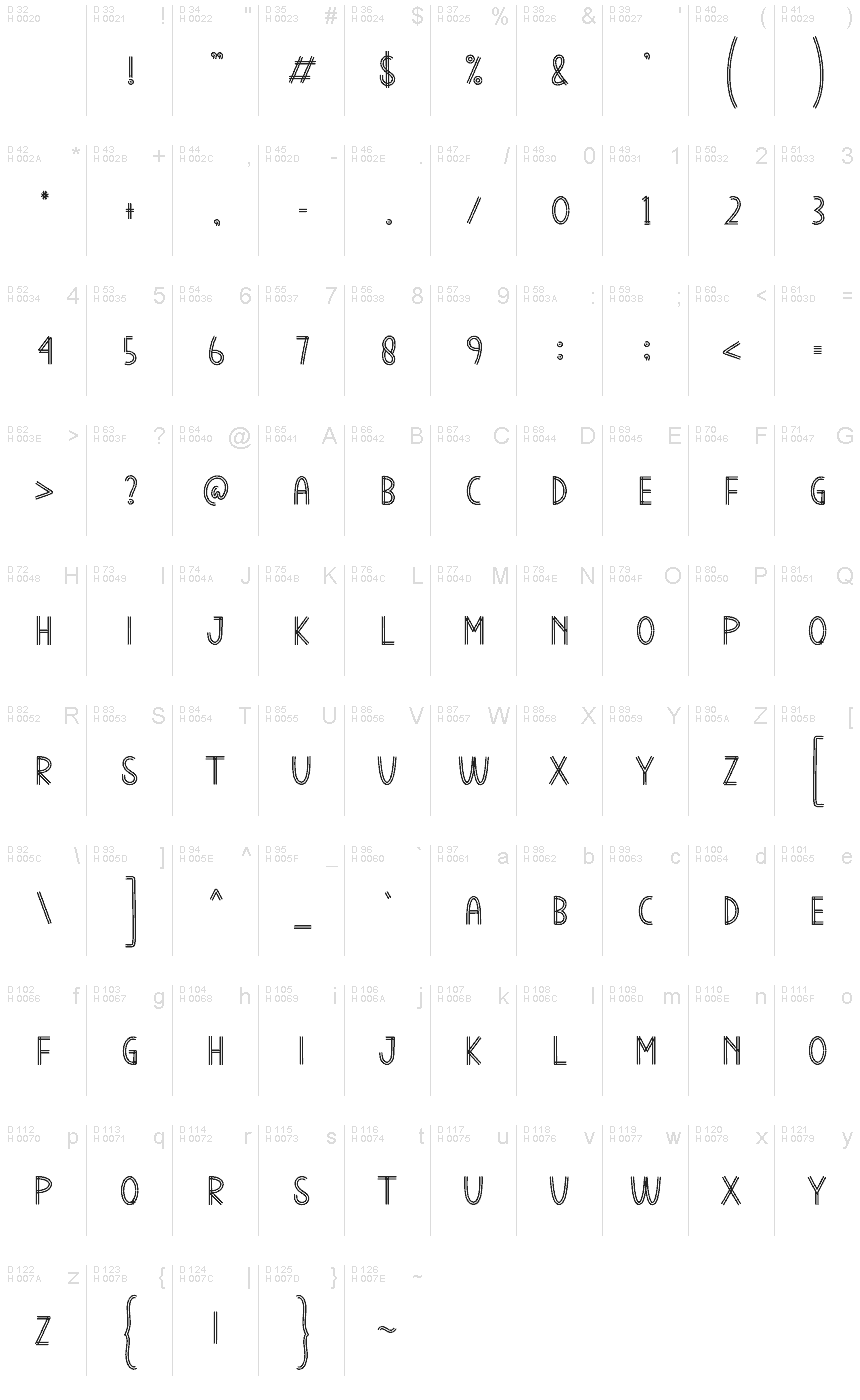
Linedoor
Linedoor font, designed by Andi Moz, is a geometric display font with art deco influences and decorative elements. Condensed and minimalist in its aesthetic, the modern appeal and retro feel give this font its signature atmosphere that users will instantly recognize.
Use Linedoor for movie titles, posters, book covers, magazines, board games packaging designs or even websites. The free display typeface also looks great on advertisements, event invitations such as wedding cards, flyers of all sorts or brand logos.